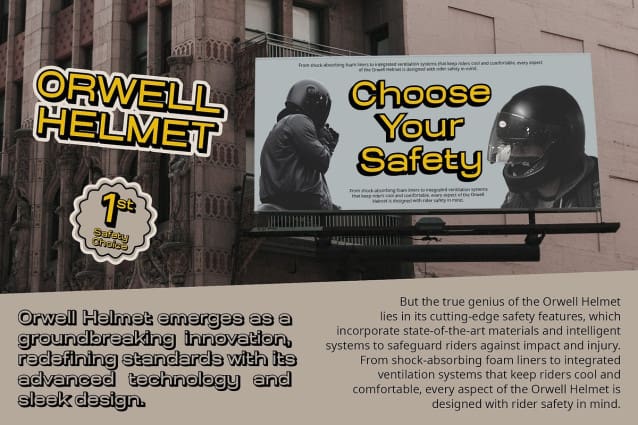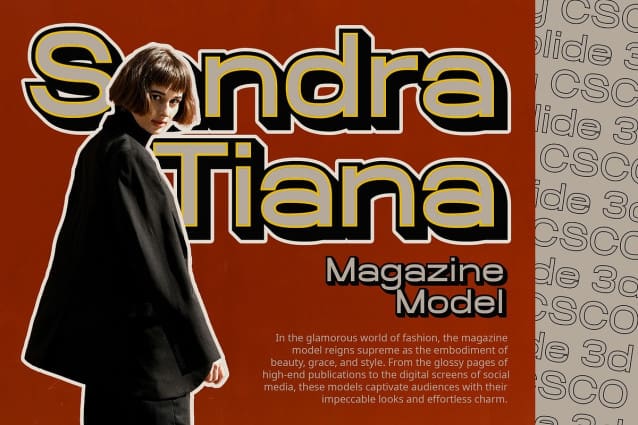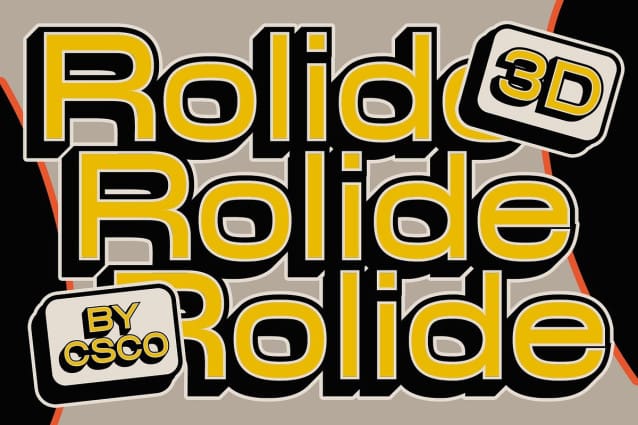
Rolide 3D Font
Rolide 3D Font: Bold and Striking Display Typeface.  Distinctive Boxed Design Rolide 3D features a unique sans serif style characterized by its boxy and wide appearance. Each letter is meticulously crafted to exude a sense of strength and solidity.
Dynamic Visual Effects With the incorporation of outline and extrude effects, Rolide 3D takes on a whole new dimension. Its three-dimensional quality adds depth and dynamism, making it perfect for eye-catching displays.
Tailored for Display Purposes Crafted specifically for display use, This font thrives in environments where bold statements are required. From posters to headlines, its commanding presence ensures maximum impact.
Versatility in Design Applications Despite its boldness, This font offers versatility in design applications. Whether used in digital interfaces or physical prints, its boxy wide shape and striking effects guarantee attention-grabbing visuals.
Making a Statement This font emerges as a font that makes a statement with its bold boxy wide design and dynamic visual effects. Tailored for display purposes, it offers versatility and impact across various design applications, ensuring your message stands out vividly.